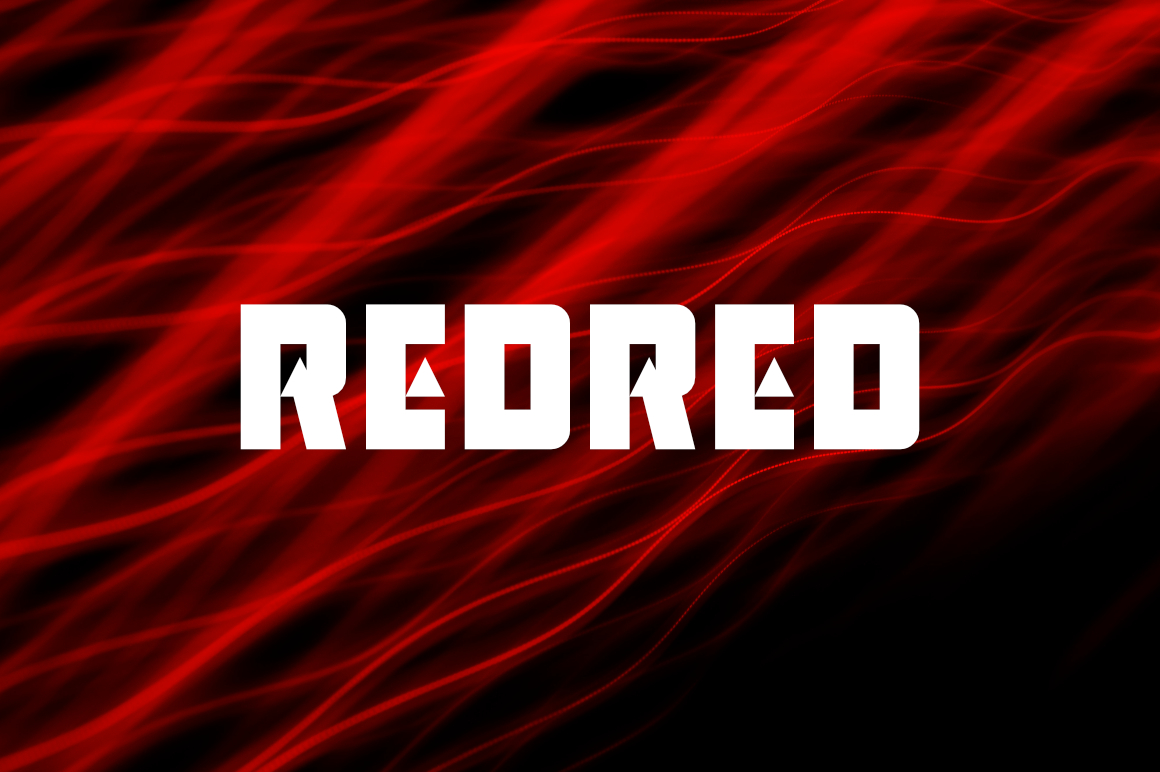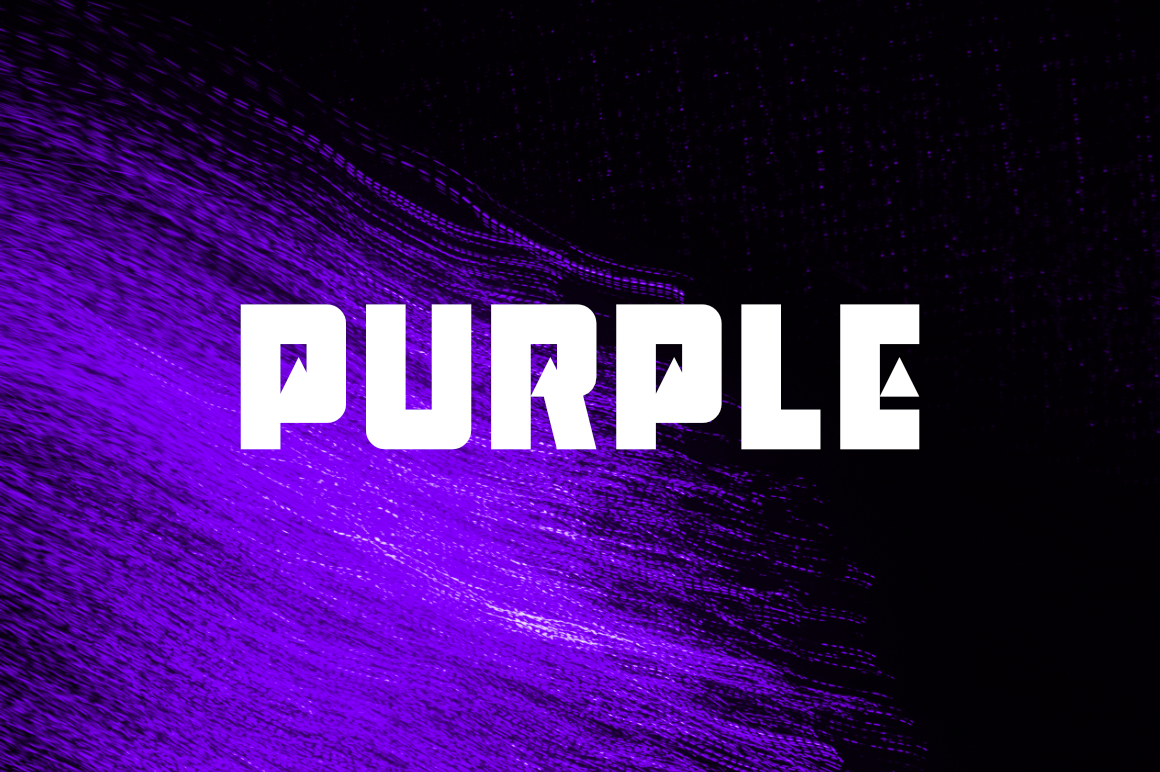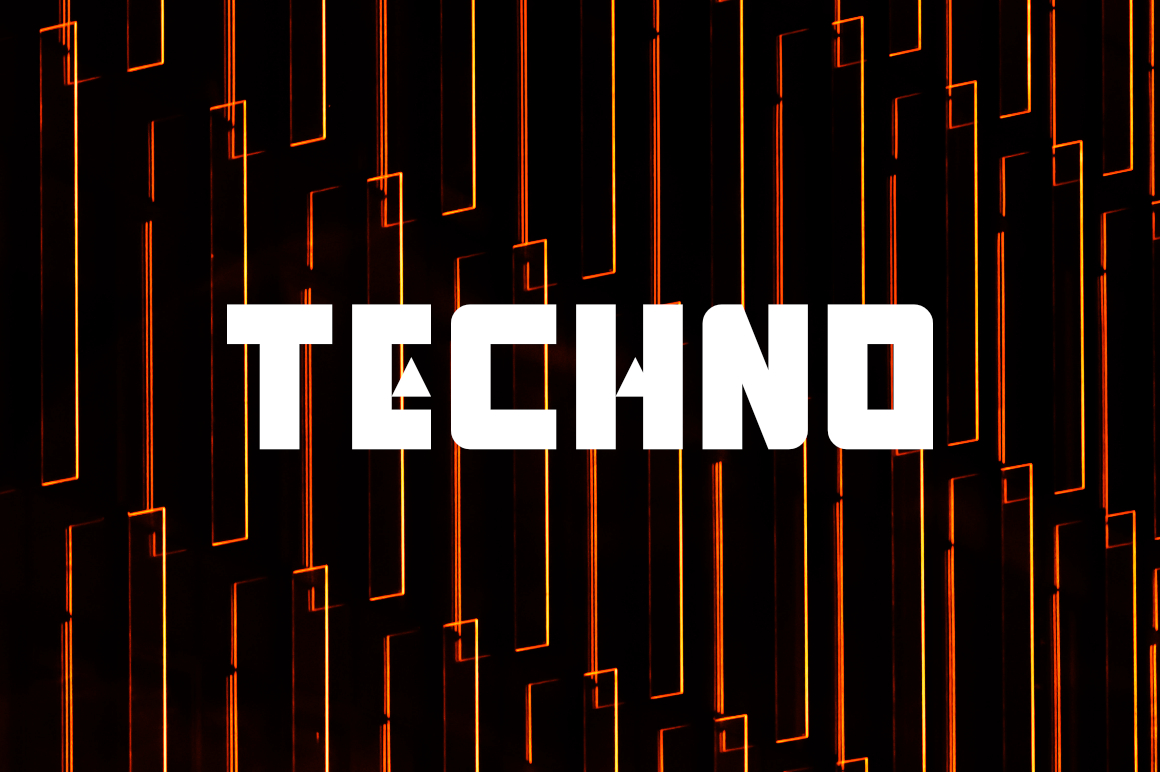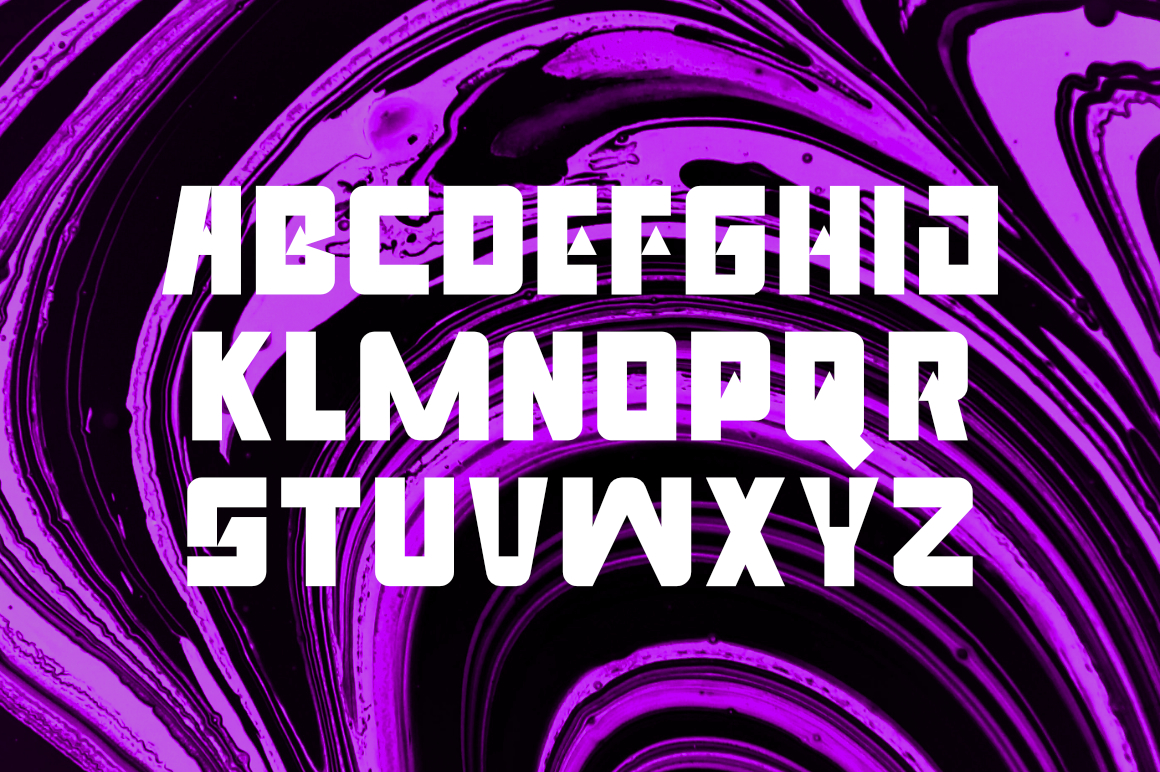
Venfro Font
Venfro Display Font
It’s a bold and thick lettered display font. It reads as strong, confident, and dynamic and can add tons of assertive character to your designs.